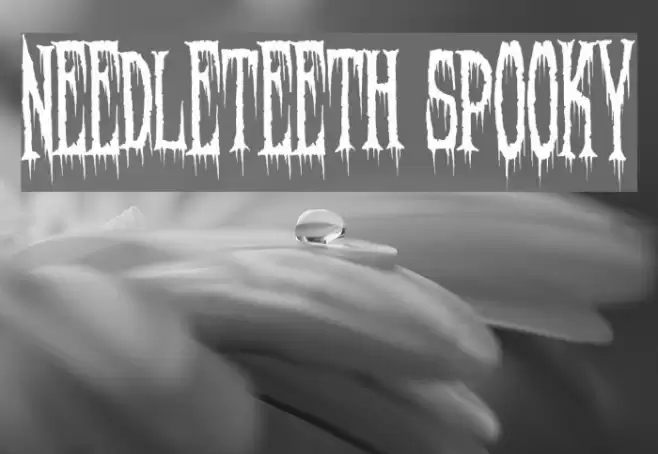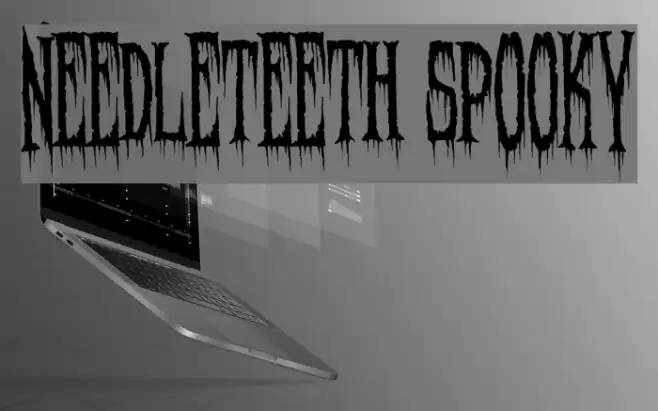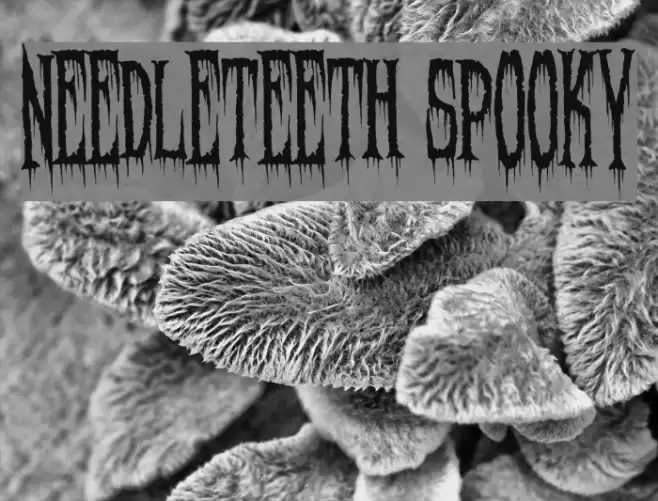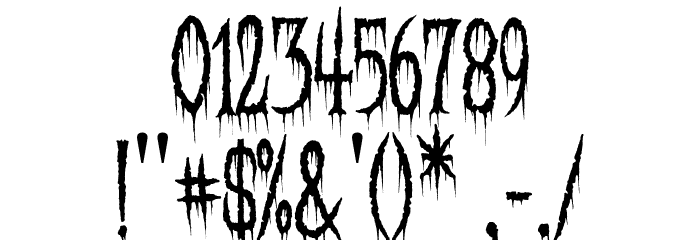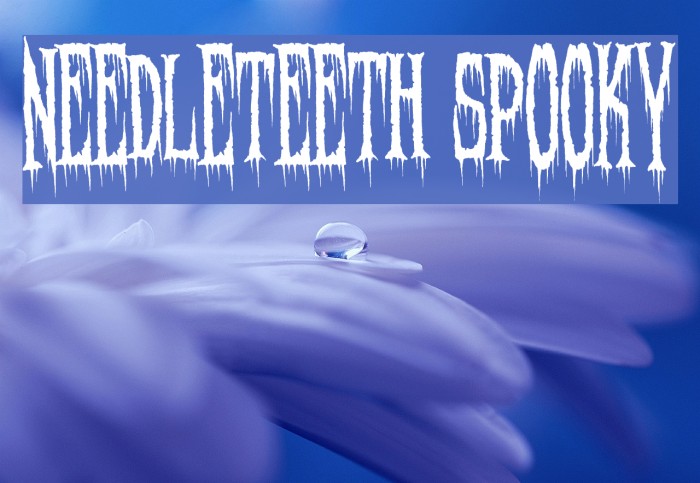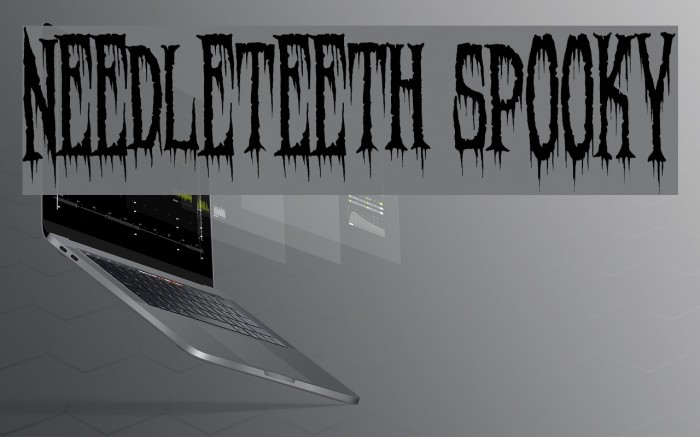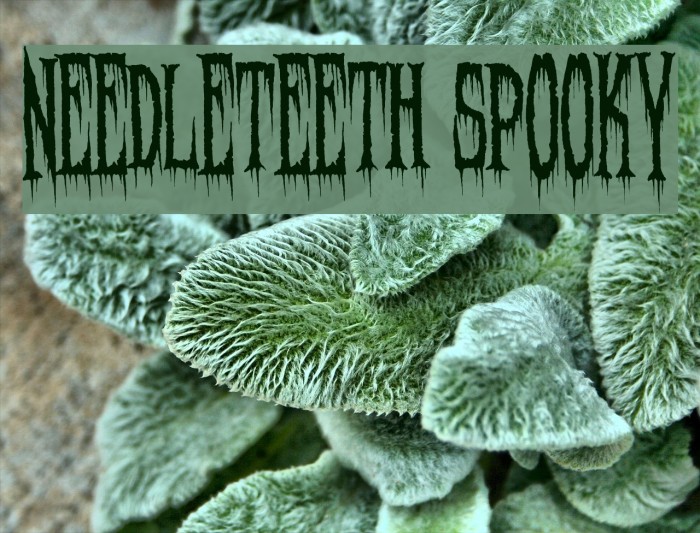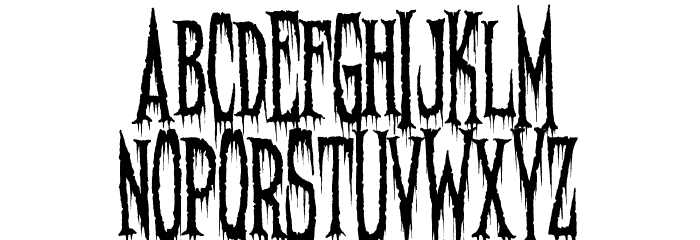
Needleteeth Spooky Font
Needleteeth Spooky Description
This font features a jagged, eerie design that evokes a sense of horror and suspense. The characters are elongated with sharp, needle-like edges that give them a dripping effect, reminiscent of something sinister. The uppercase and lowercase letters maintain a consistent style, with each character appearing as if it is melting or tearing apart. Numbers and special characters follow the same unsettling theme, making this font ideal for Halloween or horror-themed projects. Its unique style captures attention and conveys a spooky atmosphere, perfect for creating a chilling visual impact.
A jagged, eerie font with sharp, needle-like edges and a dripping effect from Uncategorized fonts.
- Proposed Projects: Ideal for Halloween invitations, horror movie posters, haunted house flyers, and spooky-themed merchandise.